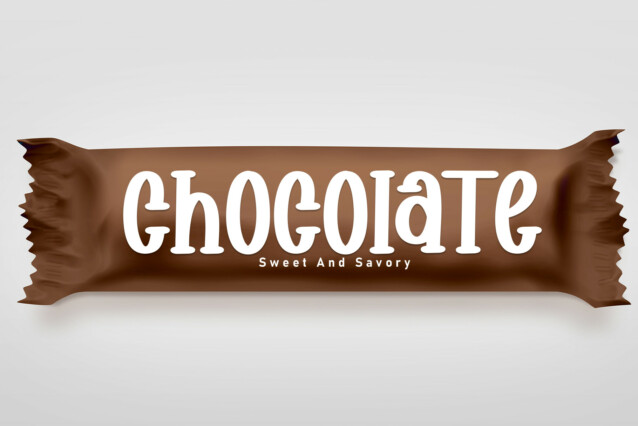
Summer Vacation Display Typeface
Summer Vacation Display Typeface is a simple and neat lettered handwritten font. Its natural and unique style makes it incredibly fitting to a large pool of designs. The only limit is your imagination!